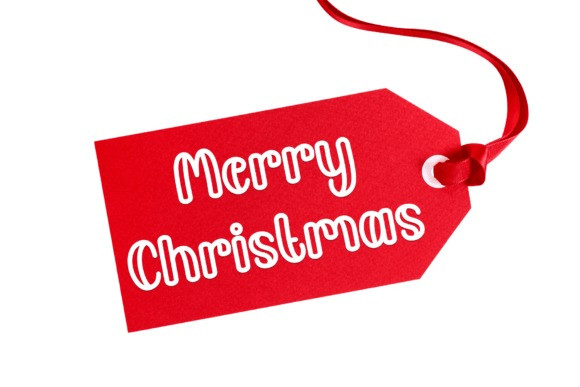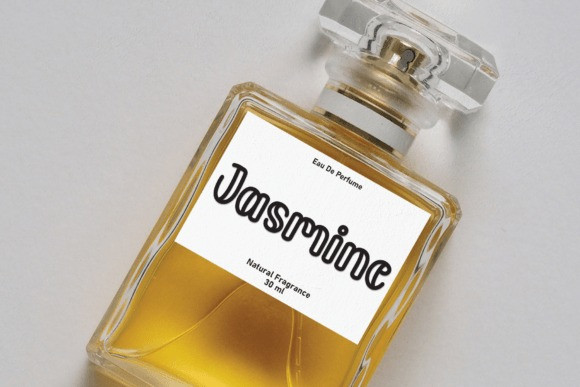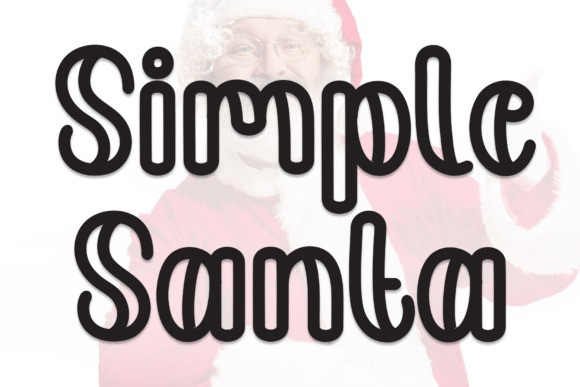
Simple Santa Font
Simple Santa Font is a sweet and friendly handwritten font. Cute yet versatile, this font is ideal for writing wedding invitations, cards, or any other design that might need a lovely touch!